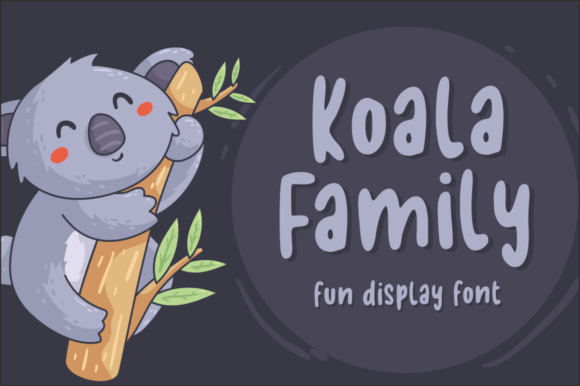
Prepare to be enthralled by Koala Family Font, an extraordinary display font family, meticulously crafted by Sronstudio, catering specifically to the needs of modern website designs. This font is not just a collection of letters; it's an artistic expression, a captivating journey through the realm of visual communication.
Step into a world where your words dance with playful elegance, where each letter exudes character and charm. Koala Family Font's meticulously crafted curves and bold strokes create a striking visual impact that demands attention. With its playful yet sophisticated demeanor, this font adds an irresistible touch of personality to your digital creations.
Unleash your imagination and let Koala Family Font transform your product packaging into captivating works of art. Its chunky letters, bursting with energy, will make your products stand out on any shelf, captivating the eyes of potential customers. Create eye-catching product designs that exude exclusivity and sophistication, leaving a lasting impression on your audience.
Koala Family Font's versatility extends beyond product packaging. Its bold presence makes it an ideal choice for labels, photography, watermarks, and any special event that calls for a touch of playful elegance. Add a dash of personality to your invitations, greeting cards, and social media posts with this font's captivating charm.
Experience the transformative power of Koala Family Font and watch your designs come alive. Its ability to evoke emotions and create a lasting impression will leave your audience captivated and eager for more. Embrace the magic of this font and embark on a creative journey that will redefine your digital presence.